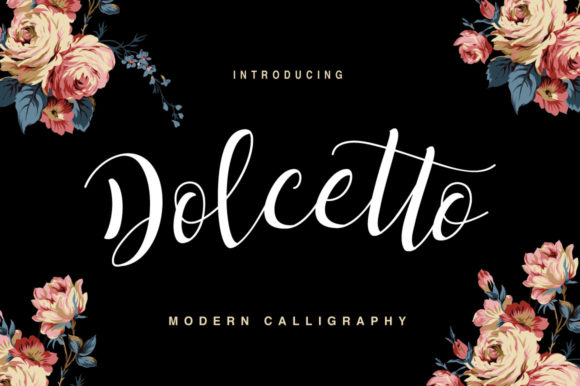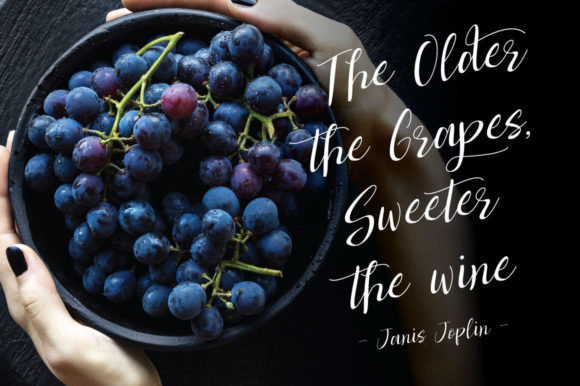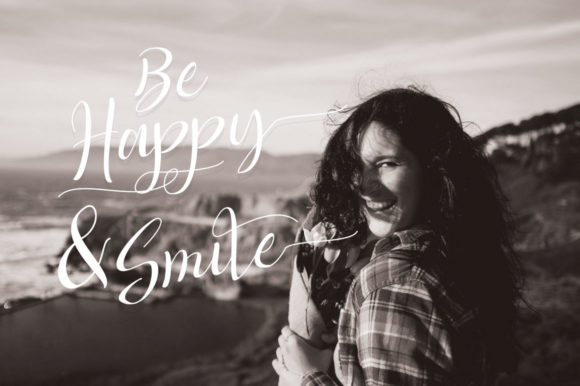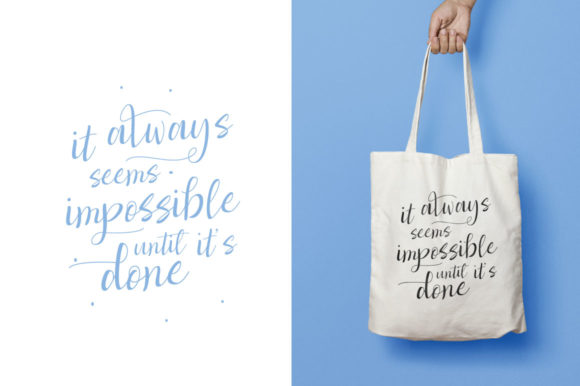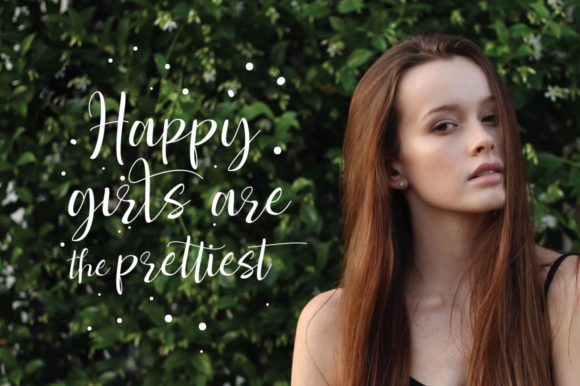
Dolcetto Script Font
About Dolcetto Script Font
The Dolcetto is a modern calligraphy script. It has an elegant and feminine style which makes it perfect for adding a luxurious feel to your designs.